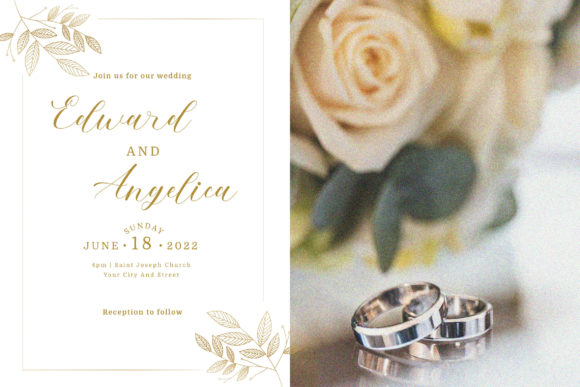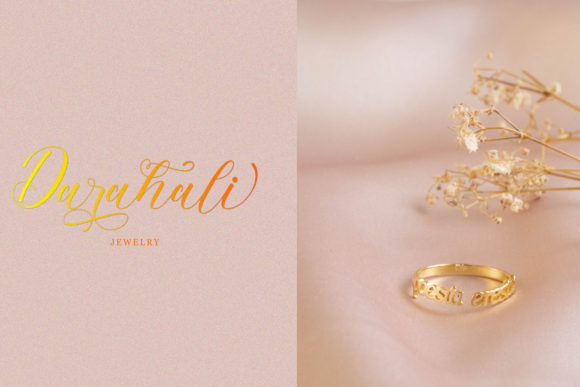
Sunday Letter Font
db-ku.com - Script & Handwritten -- Sunday Letter feels equally charming and elegant. It looks stunning on wedding invitations, thank you cards, quotes, greeting cards, logos, business cards and every other design which needs a handwritten touch.